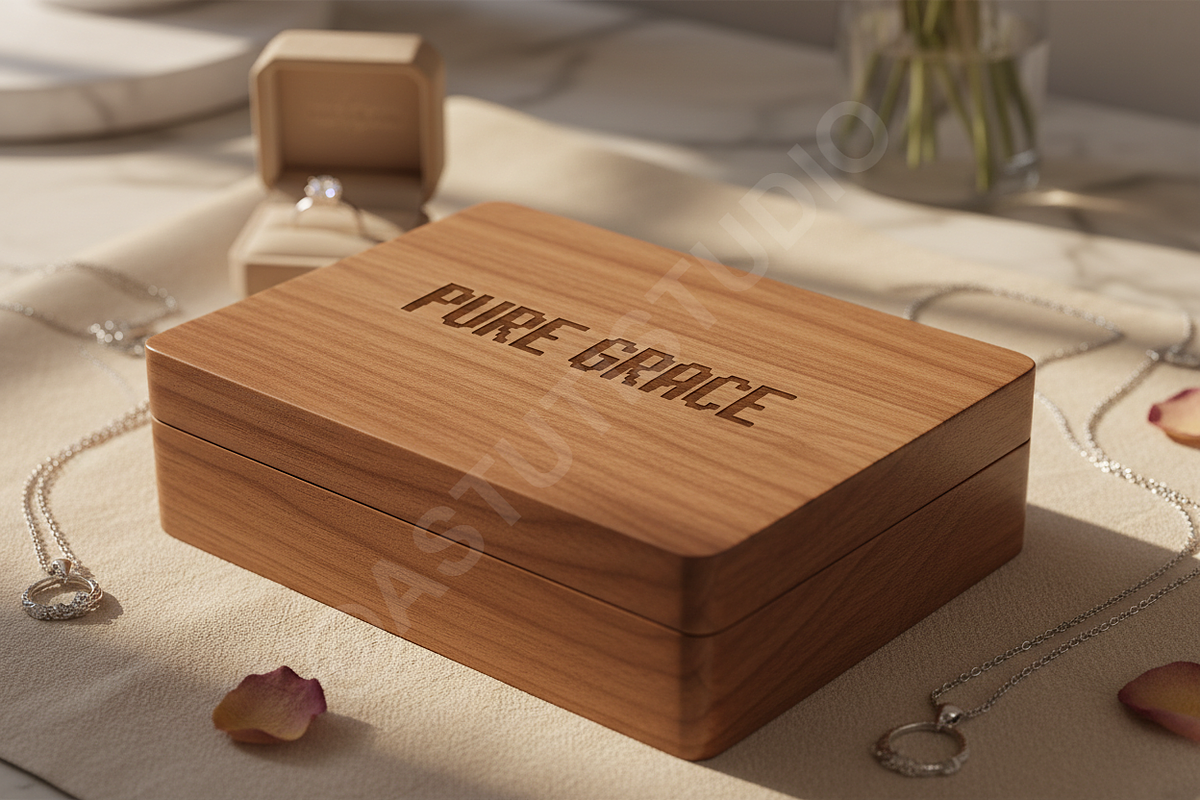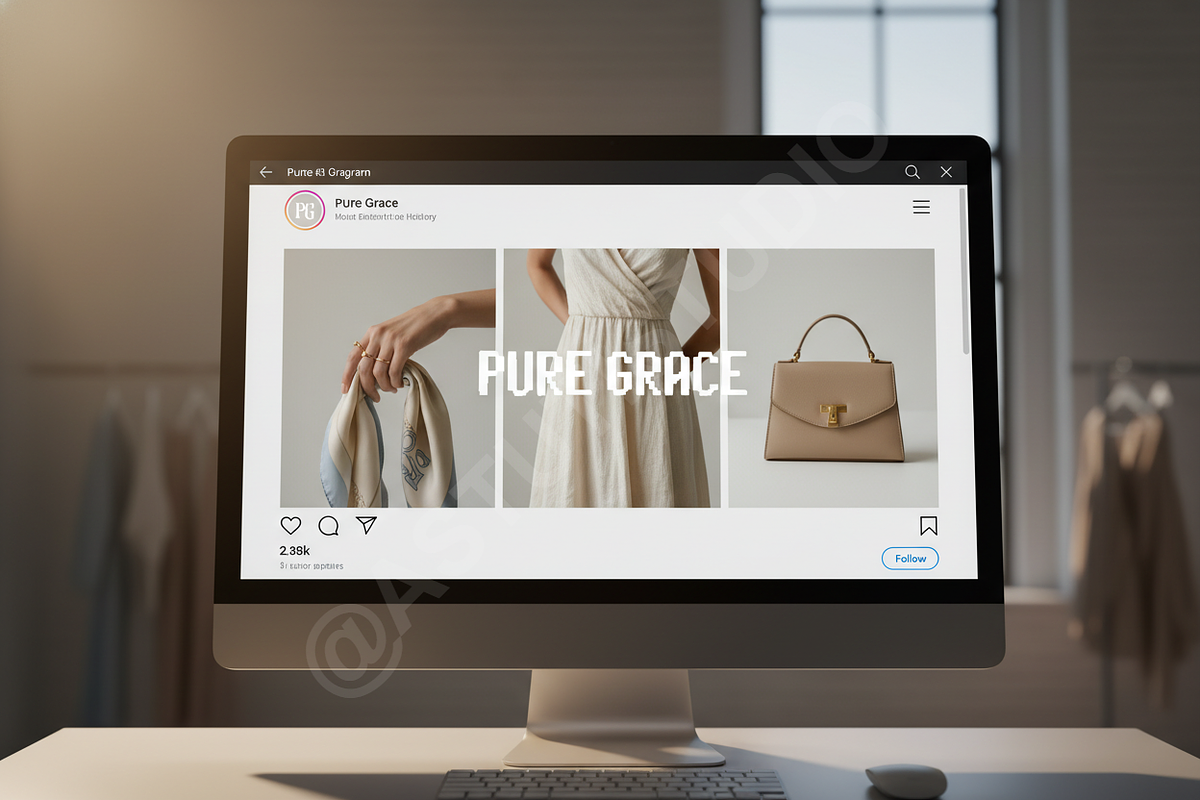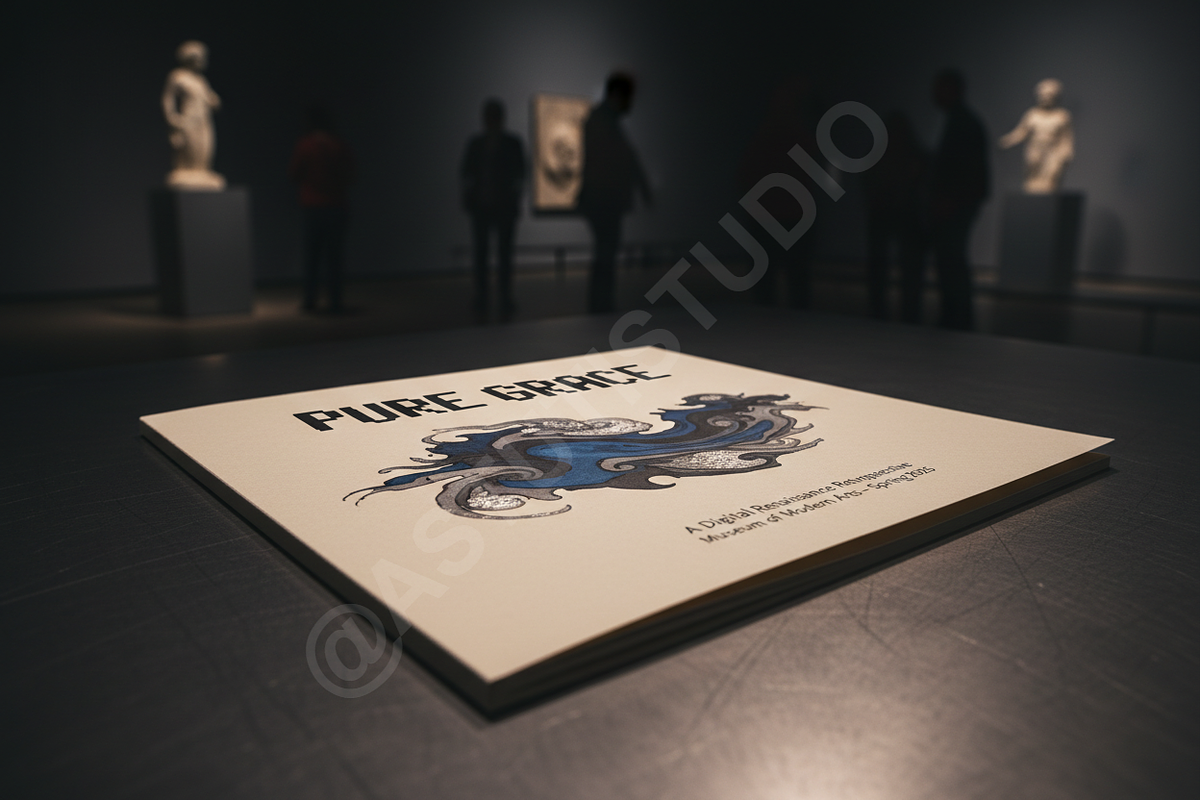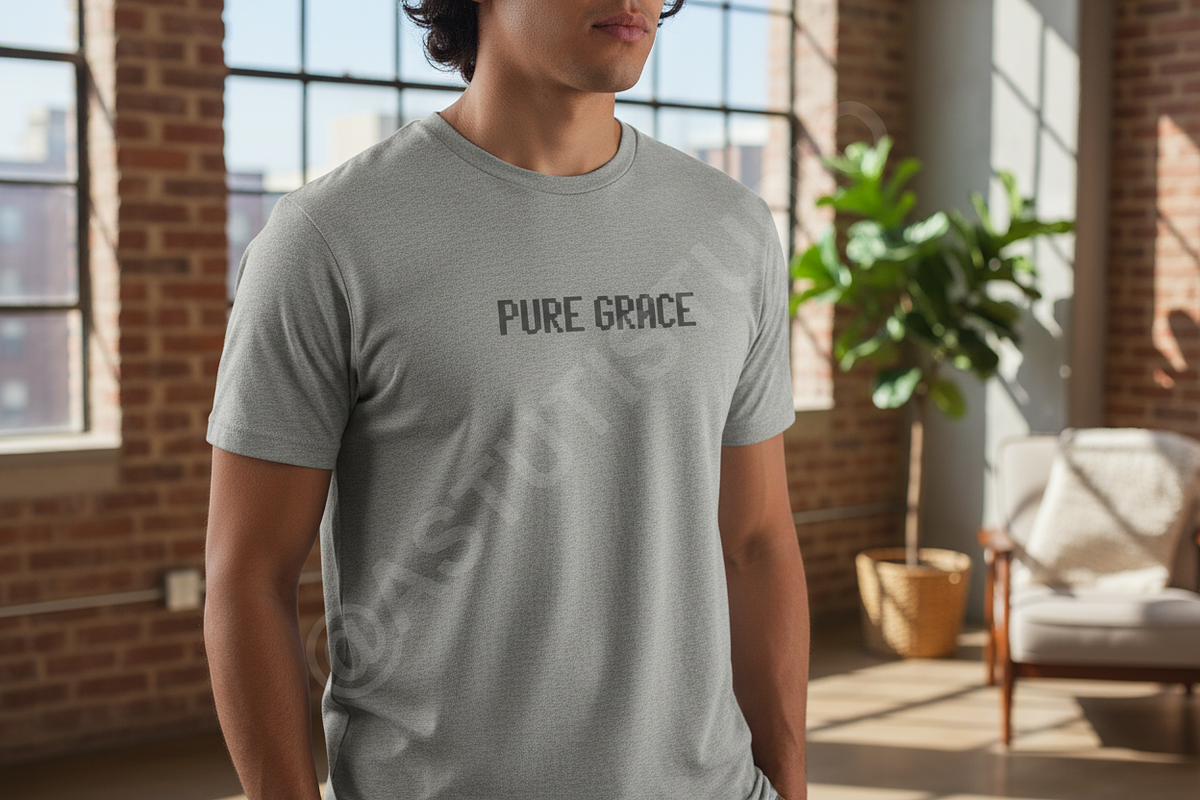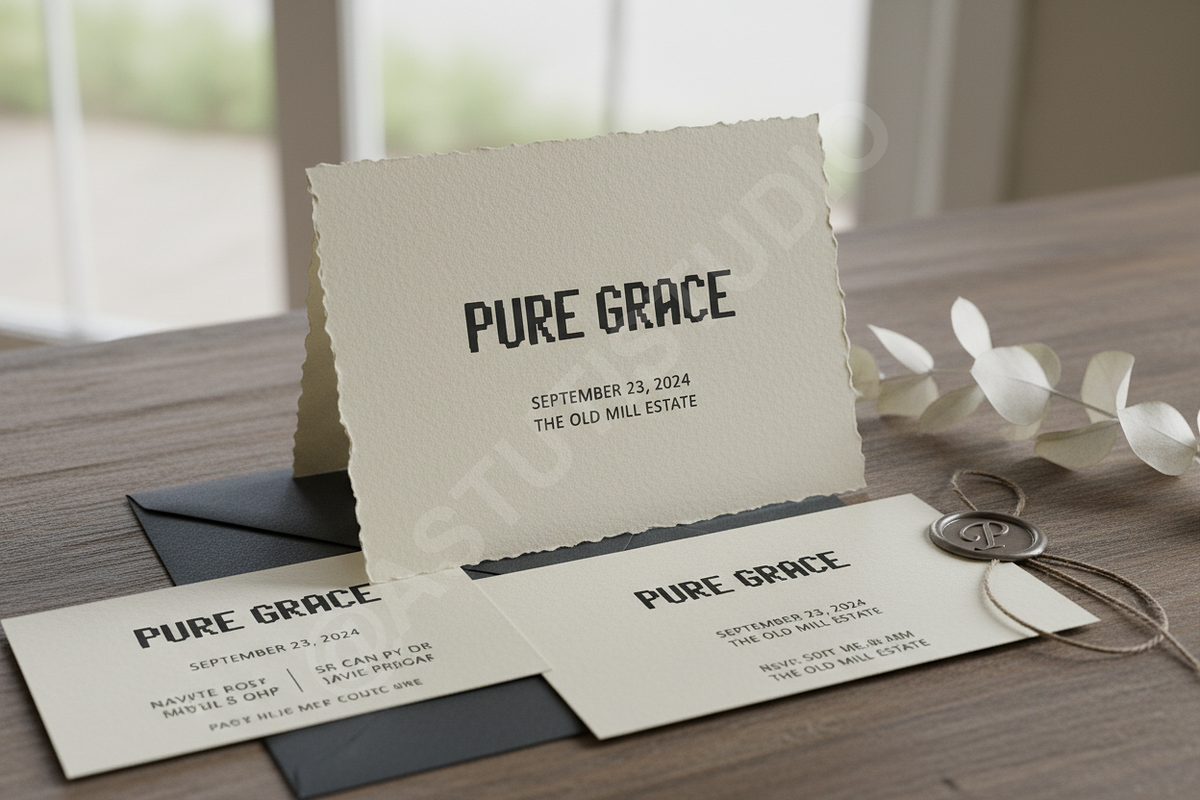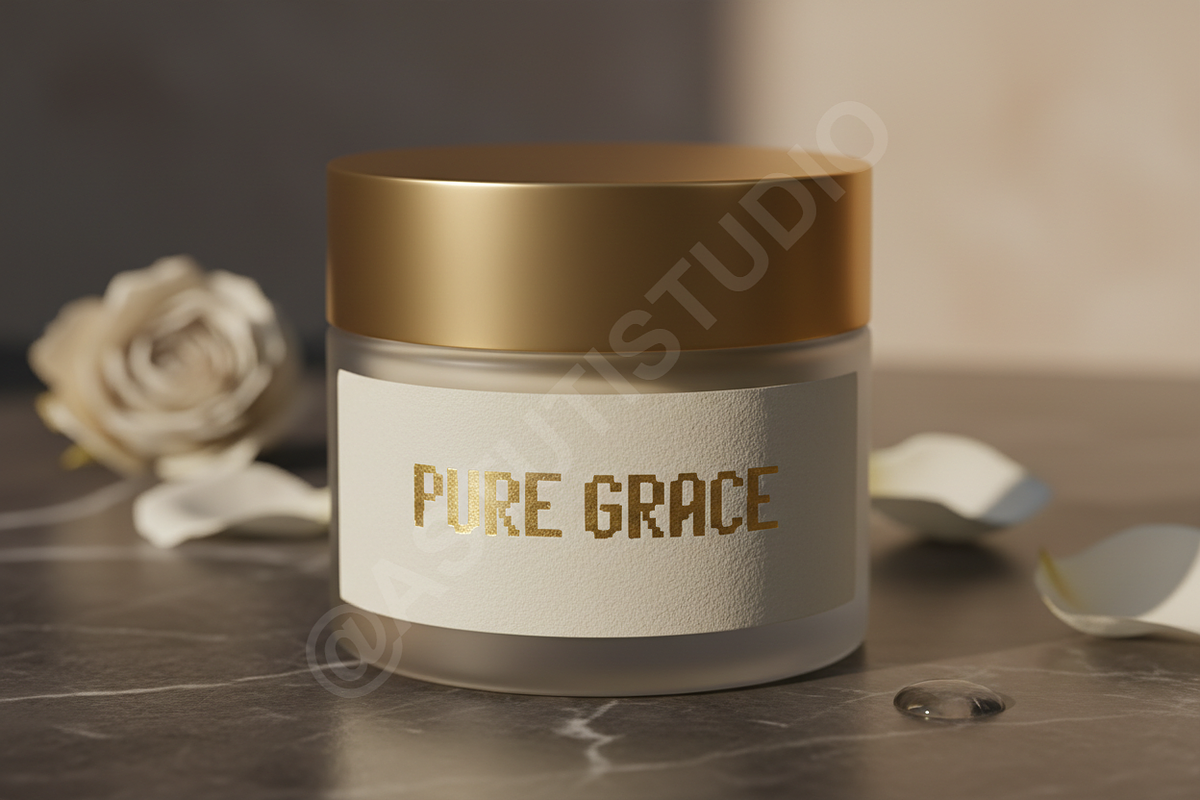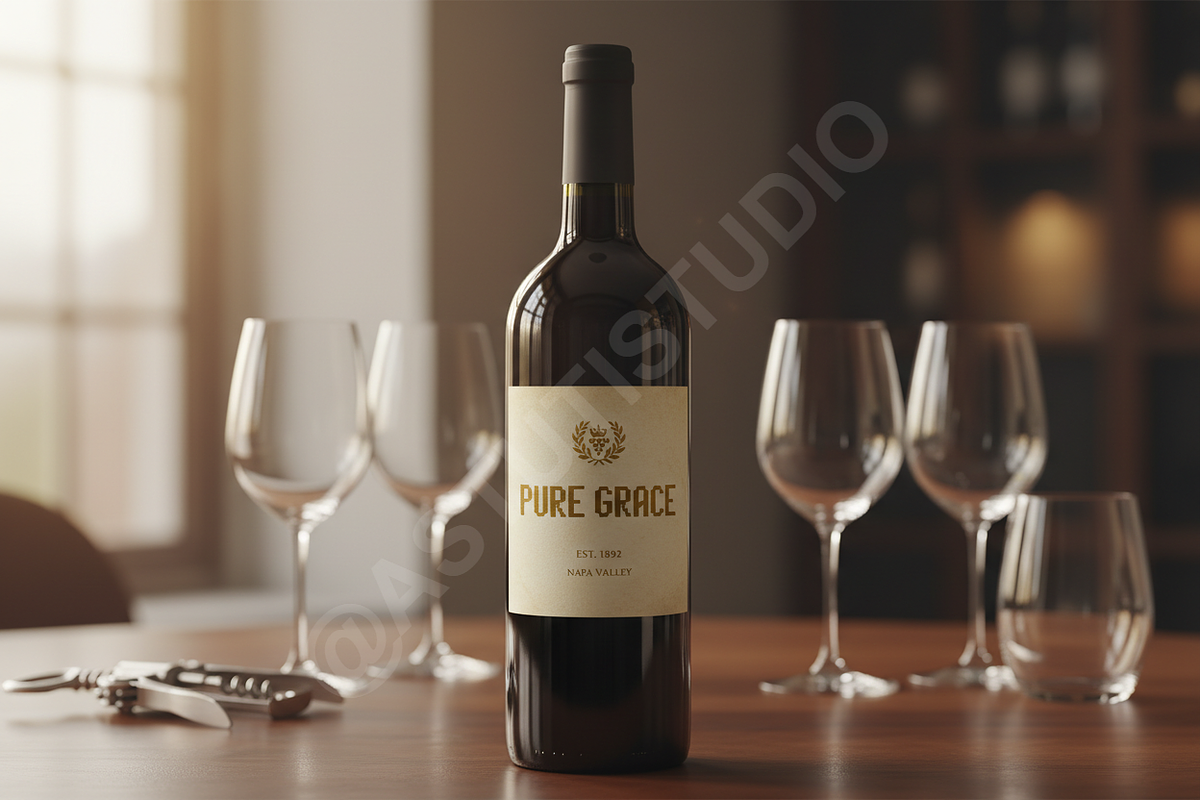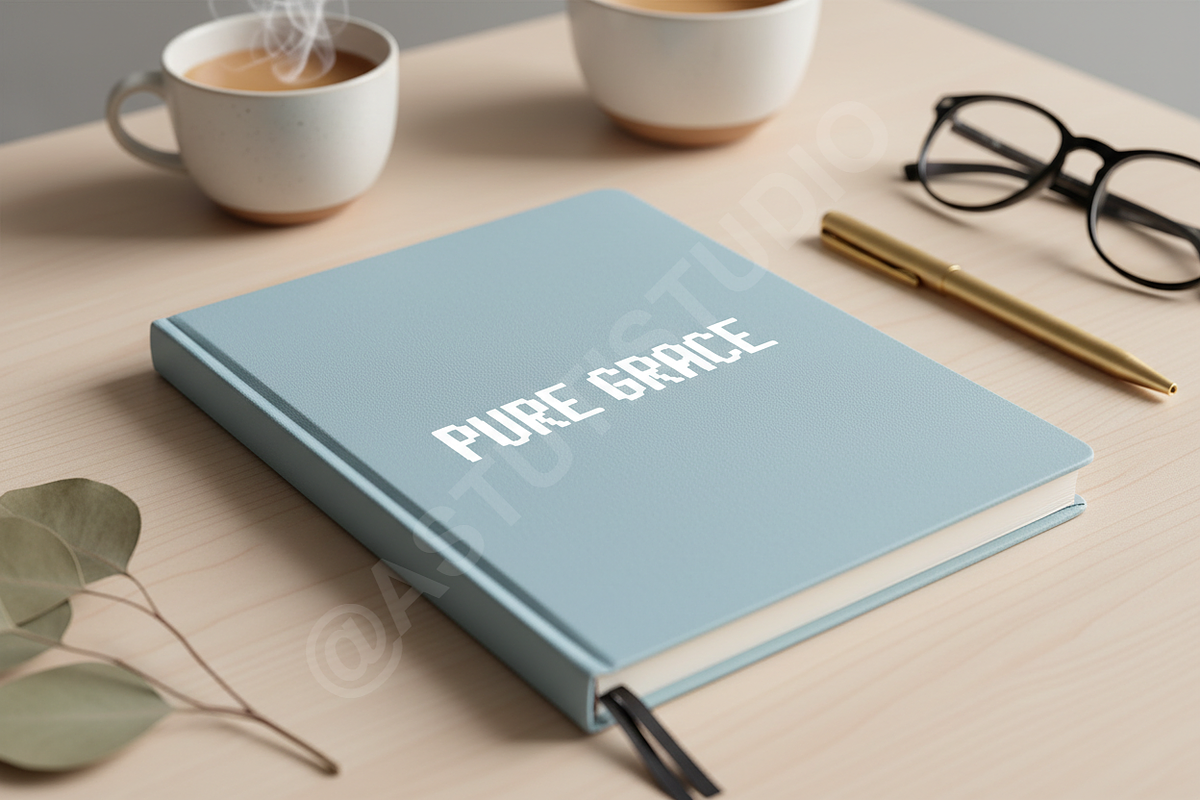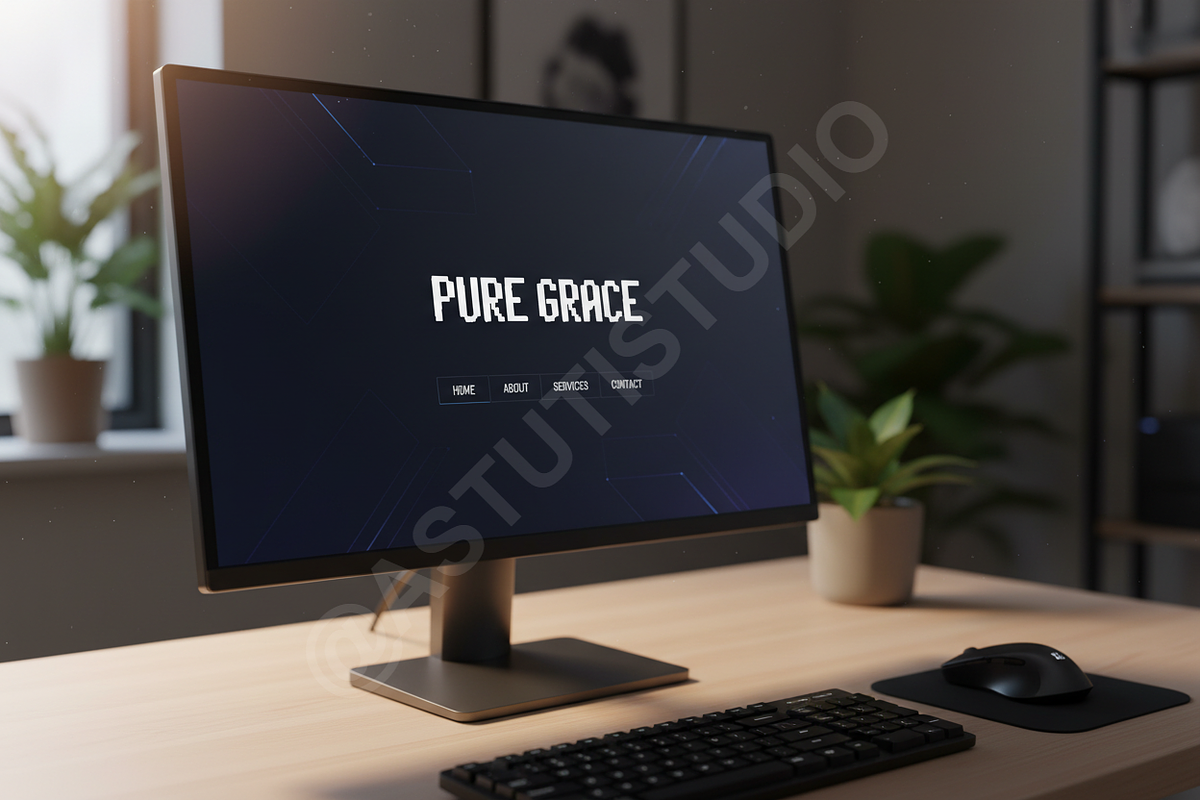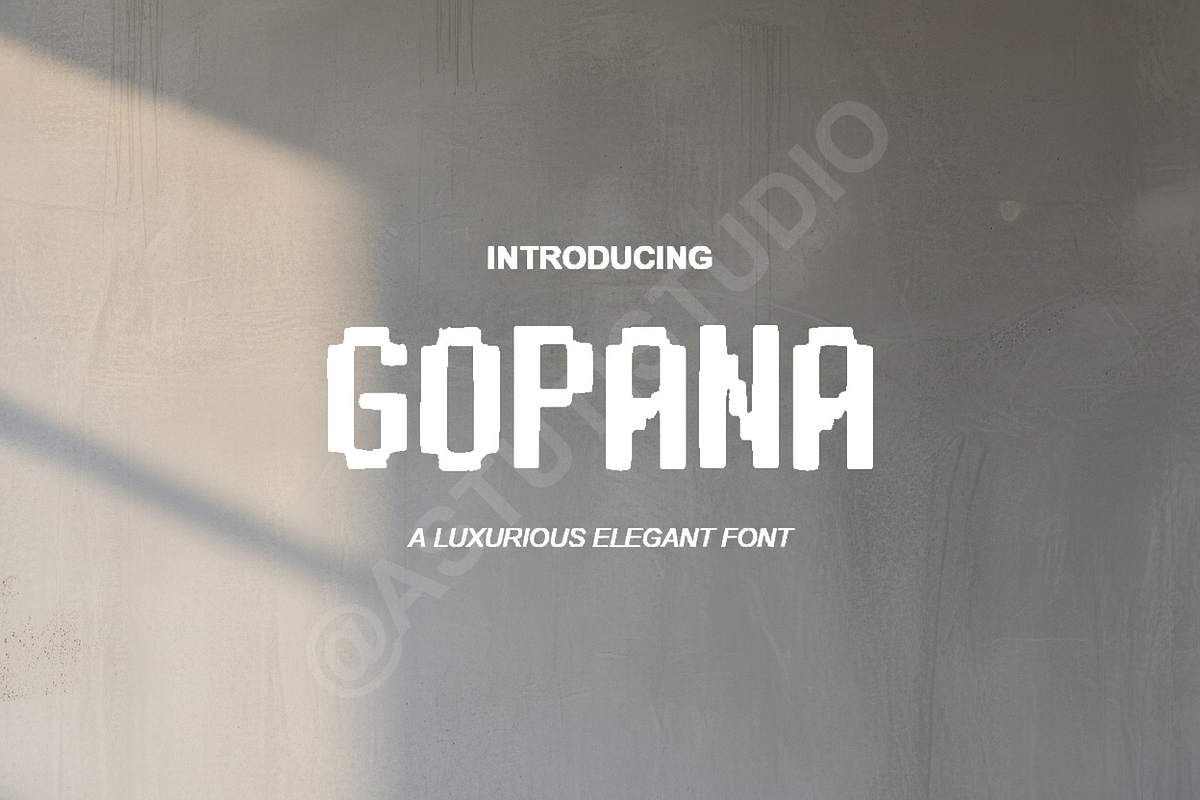
Gopana - A Modern Elegant Serif Type
INTRODUCTION
Gopana is a premium serif typeface crafted for those who demand sophistication and clarity. Inspired by high-fashion editorial design, it balances refined curves with sharp terminals to create a timeless aesthetic. Whether you are building a luxury brand identity or designing a sleek magazine layout, Gopana provides a polished, professional look that elevates any creative project.
- High-contrast letterforms for a luxurious feel
- Extensive ligature set for unique character combinations
- Full multilingual support for global accessibility
- Stylistic alternates to customize your headlines
- Precision kerning for professional-grade typesetting
PERFECT FOR
- Luxury branding and visual identity
- High-end editorial and magazine layouts
- Sophisticated social media graphics
- Wedding stationery and invitations
- Premium product packaging